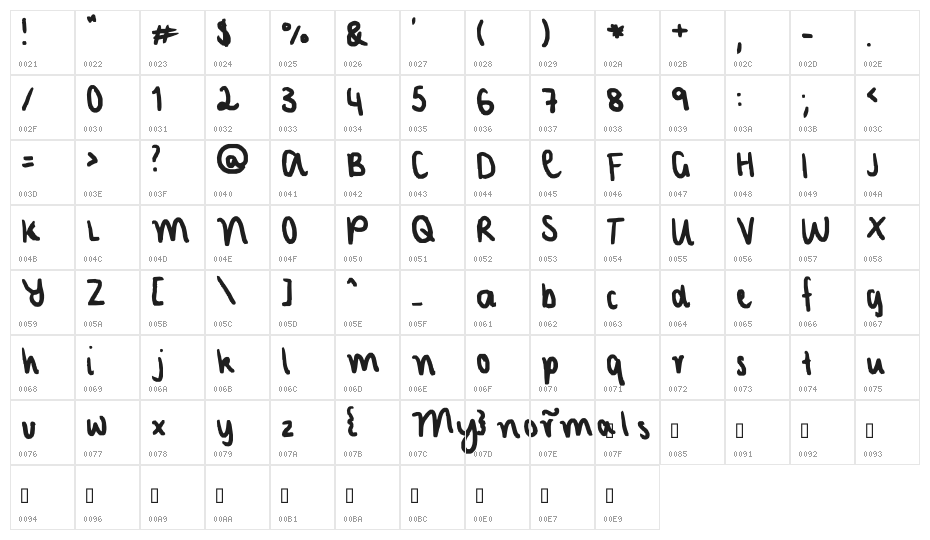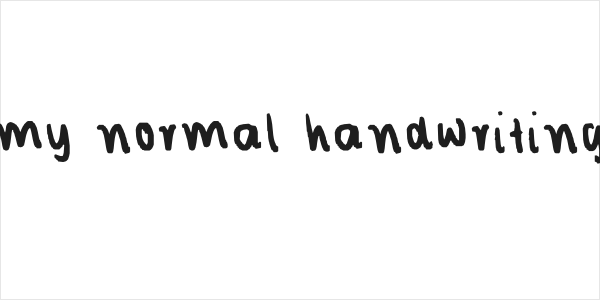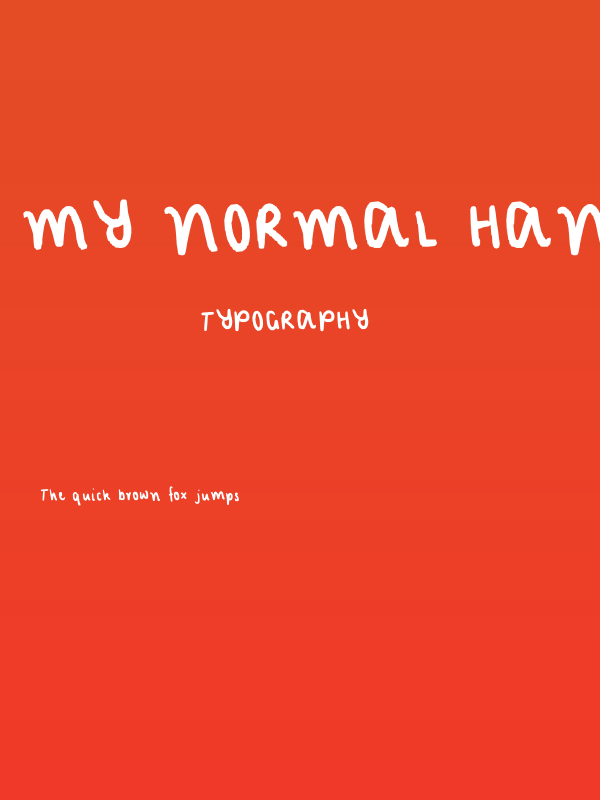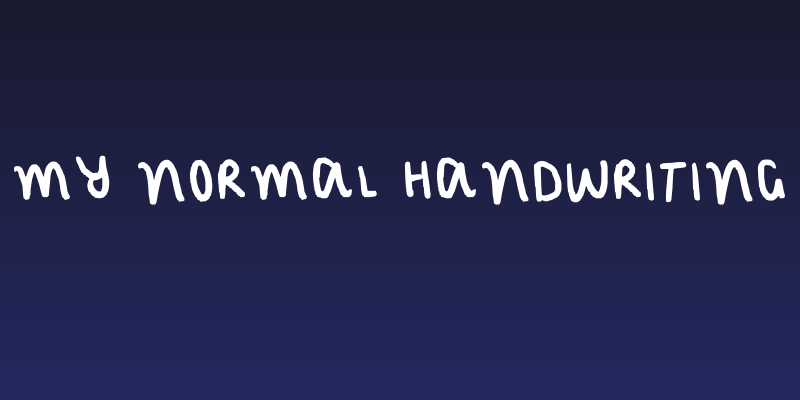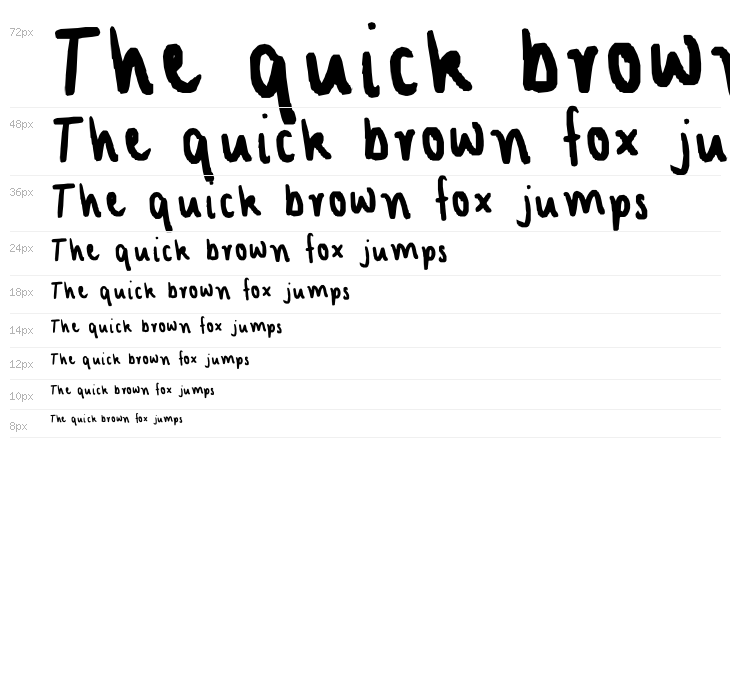
my normal handwriting Font
my normal handwriting Description
This font exudes a casual and approachable vibe, reminiscent of natural handwriting. The characters are bold and slightly irregular, giving them a personal and human touch. The uppercase and lowercase letters maintain a consistent style, with rounded edges and a playful flow. Numbers and special characters follow the same informal aesthetic, making the font versatile for various uses. Its organic appearance makes it perfect for projects that require a personal or creative touch, such as invitations, greeting cards, or informal branding.
| Proposed Projects | Ideal for personal projects, creative branding, invitations, and greeting cards. |